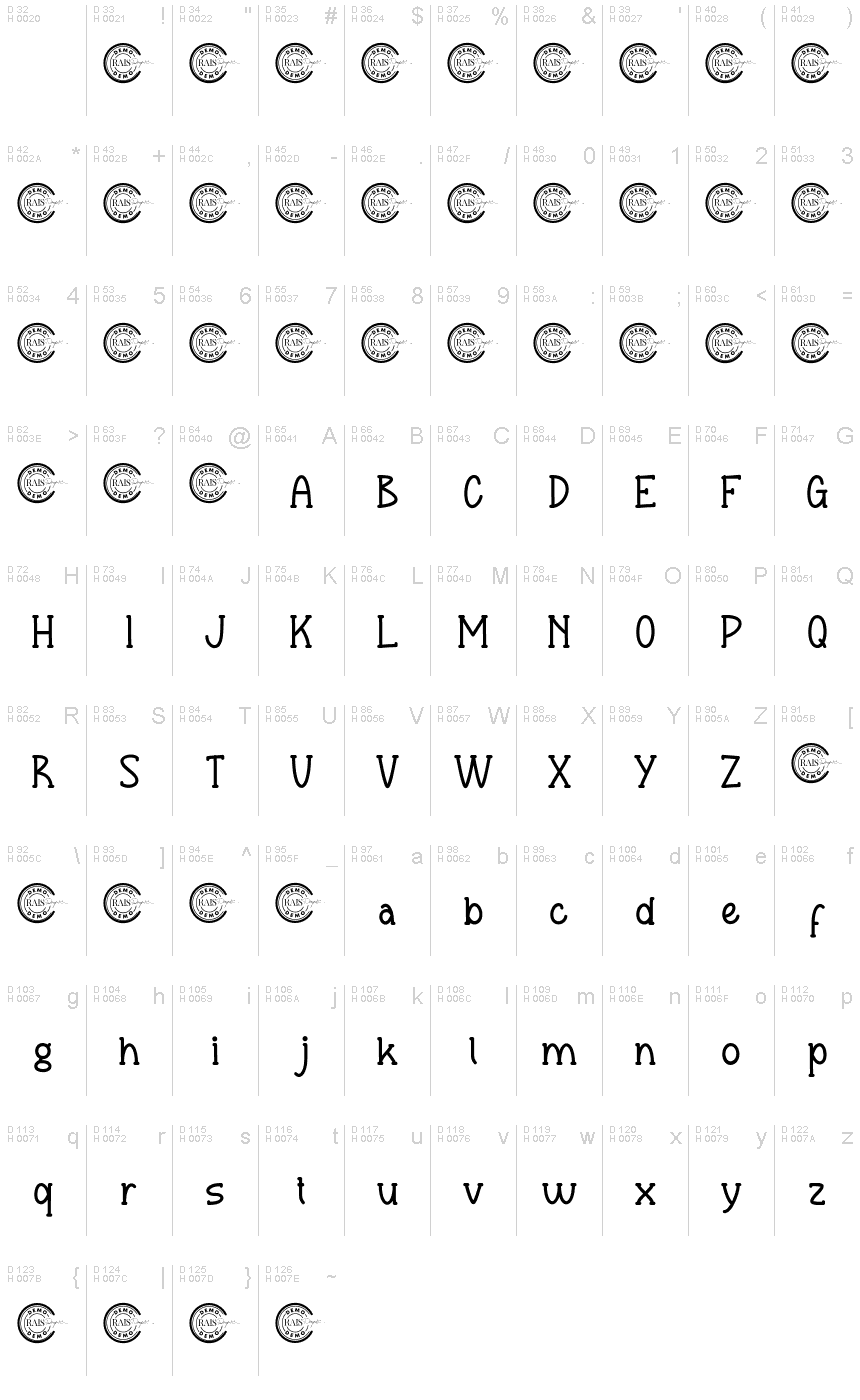
Riberio Demo
Introducing Riberio, a light cartoon display font designed by Shalsha & Sarah SP. Perfect for adding a touch of fun to your projects, Riberio is ideal for creating logos, posters, children's books and other playful designs.